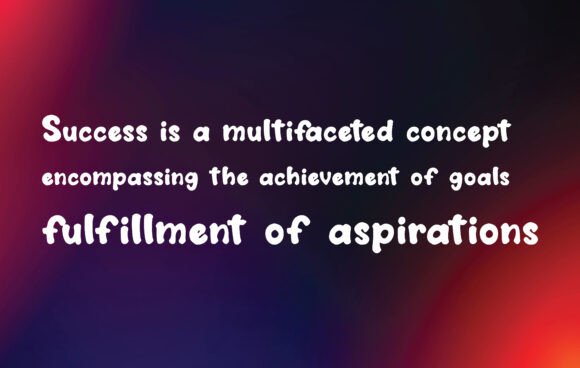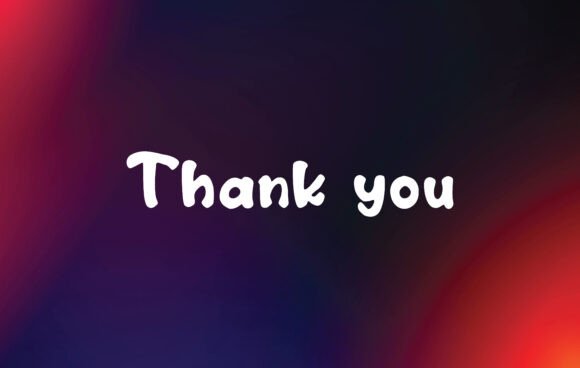
Clematis Font: Elevate Your Creative Projects with Elegance
Are you a designer, crafty enthusiast, or someone who loves to dabble in creative projects? Look no further than the Clematis font, a stunning handwritten font that can take your ideas to new heights. With its beautiful and elegant design, Clematis is the perfect choice for creating eye-catching logos, branding, and quotes that will leave a lasting impression.
The Beauty of Clematis Font
Clematis is a lovely and beautiful handwritten font that boasts a unique and charming style. Its elegant design makes it an excellent choice for a wide range of creative projects, from logos and branding to quotes and social media graphics. The font’s flowing lines and curves give it a sophisticated and refined look that is sure to impress.
Why Choose Clematis Font?
So, what makes Clematis font stand out from the rest? Here are just a few reasons why it’s an excellent choice for designers and crafters:
- Elegant Design: Clematis font has a beautiful, elegant design that adds a touch of sophistication to any project.
- Versatility: This font is perfect for a wide range of creative projects, from logos and branding to quotes and social media graphics.
- Easy to Read: Despite its elegant design, Clematis font is easy to read, making it perfect for body text and captions.
- Unique Style: Clematis font has a unique and charming style that sets it apart from other fonts.
When it comes to creating logos and branding, the font you choose can make all the difference. Clematis font is an excellent choice for logos and branding because of its elegant and sophisticated design. It’s perfect for creating a professional and polished look that will help your brand stand out.
Use Clematis Font for Quotes and Social Media Graphics
Clematis font is also perfect for creating quotes and social media graphics. Its elegant design and flowing lines make it an excellent choice for creating visually appealing graphics that will grab attention. Whether you’re creating a quote for Instagram or a Facebook post, Clematis font is sure to make your content stand out.
Tips for Using Clematis Font
Here are a few tips for using Clematis font in your creative projects:
- Pair it with a bold font: Clematis font looks great when paired with a bold font. Try pairing it with a sans-serif font for a striking contrast.
- Use it for headings: Clematis font is perfect for headings and titles. Use it to add a touch of elegance to your project.
- Experiment with colors: Clematis font looks great in a variety of colors. Experiment with different colors to find the one that works best for your project.
In conclusion, Clematis font is a beautiful and elegant handwritten font that is perfect for designers, crafters, and anyone who loves to dabble in creative projects. Its unique style, versatility, and ease of use make it an excellent choice for a wide range of creative projects, from logos and branding to quotes and social media graphics. So why not give Clematis font a try and see how it can elevate your creative projects to new heights?
Get Creative with Clematis Font
Ready to get creative with Clematis font? Here are some ideas to get you started:
- Create a logo: Use Clematis font to create a professional and polished logo for your brand.
- Make a quote graphic: Use Clematis font to create a visually appealing quote graphic for social media.
- Design a business card: Use Clematis font to add a touch of elegance to your business card design.